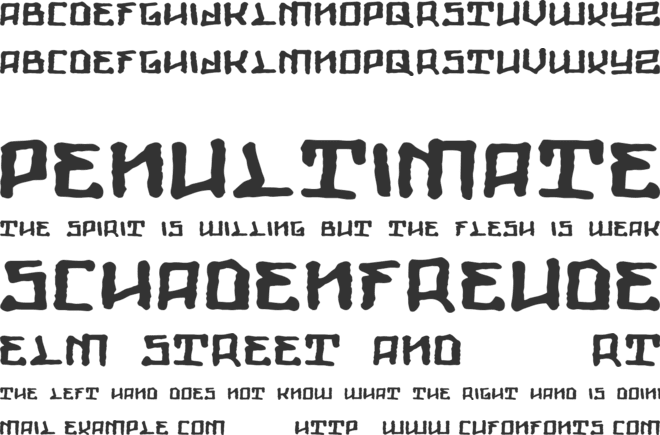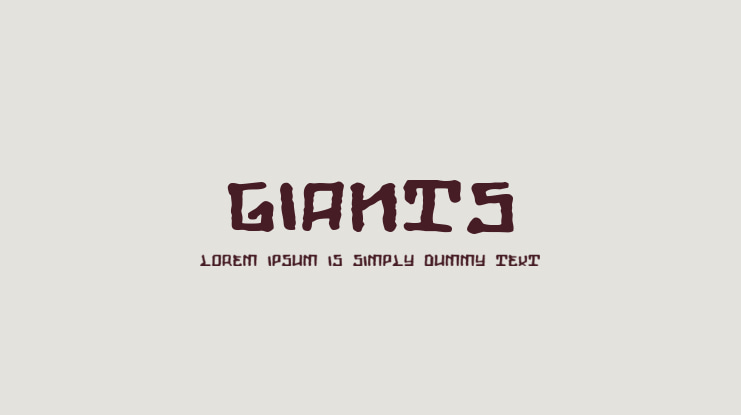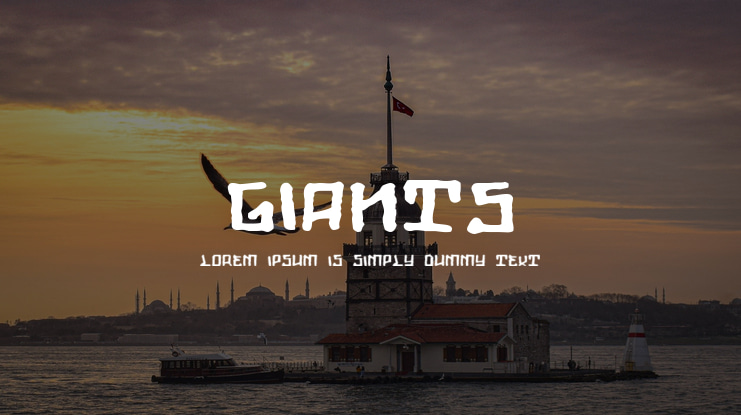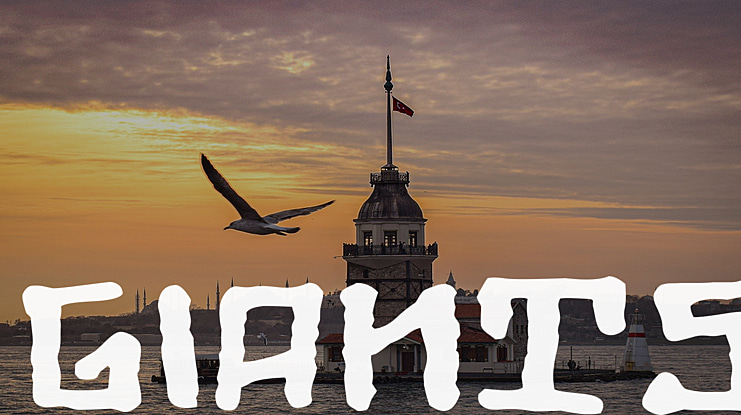
Giants Font
Out Of Step Font Company
This is a hand-drawn Mike Giant tribute font, drawn with a sharpie. Works great on graffiti and flash modern projects!